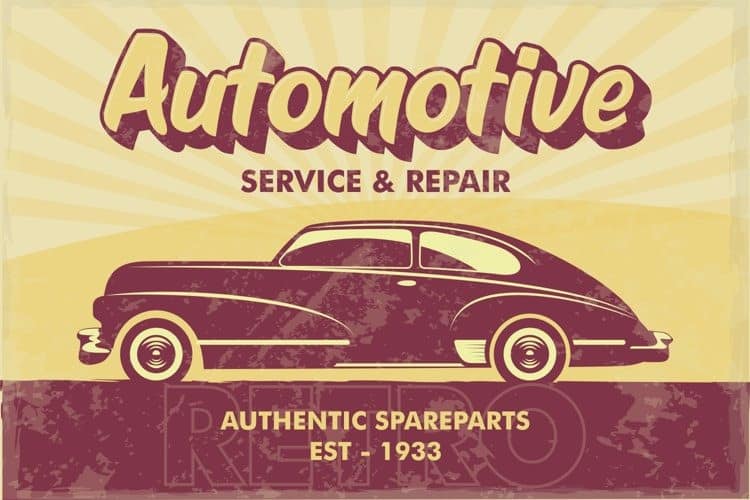
Great Hustle Display Font
Designed for funky headlines and indie magazines, Great Hustle was inspired by vintage band posters and psychedelia. It is a bold display from the designer Fachranheit. The unique characteristics of Great Hustle make it very suitable for various purposes such as quotes, t-shirt designs, flyers, youtube channels, labels, logos etc.Thank you for looking, Enjoy!